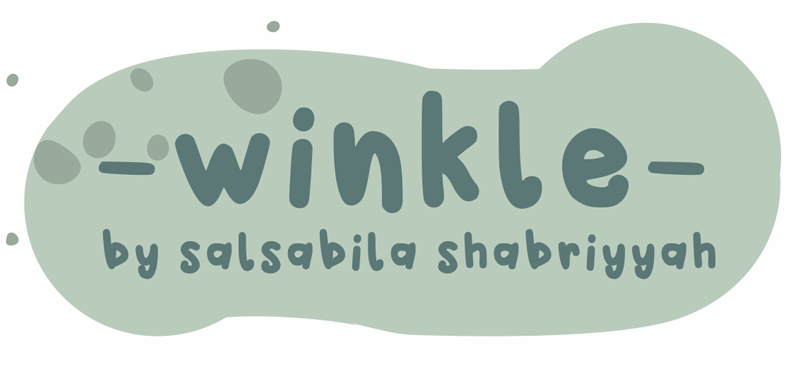
Font name: | Winkle |
Author: | Salsabila Shabriyyah |
Note by Salsabila Shabriyyah | |
hi! will download my font? its my own handwriting. enjoy it! |